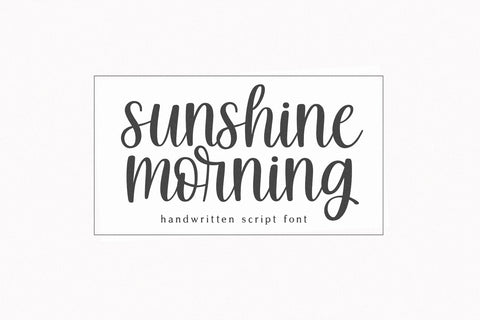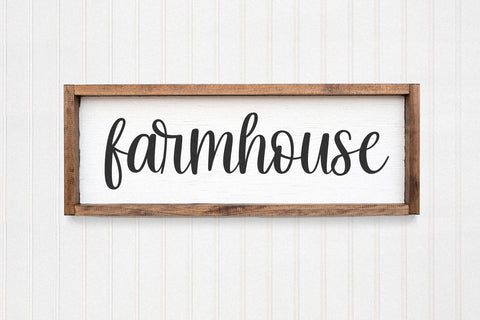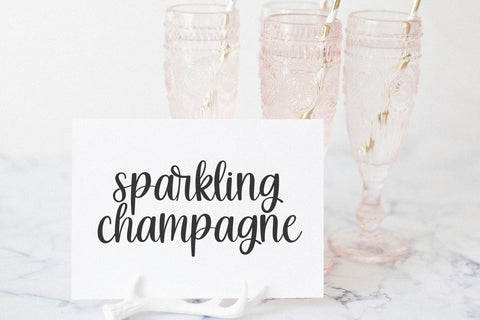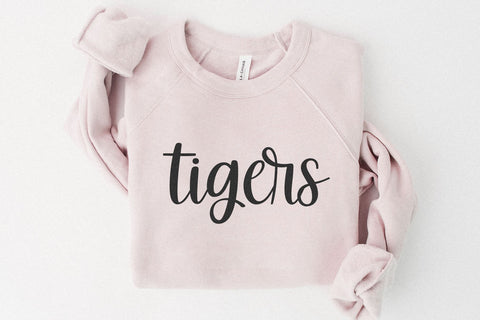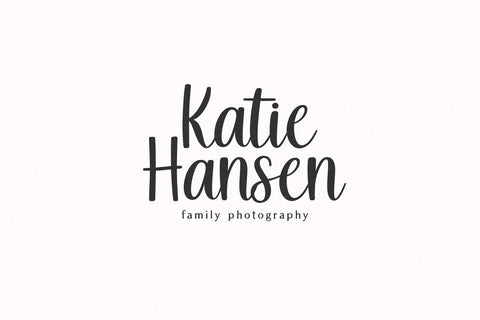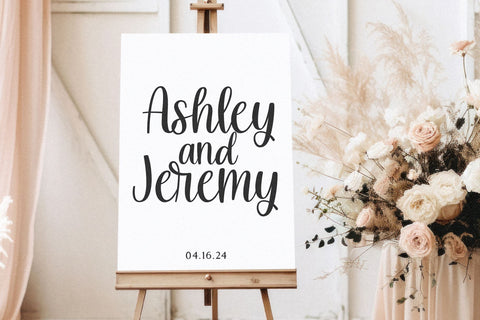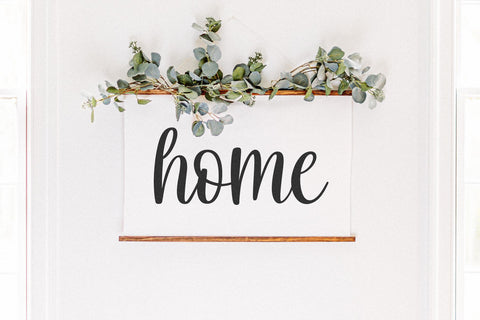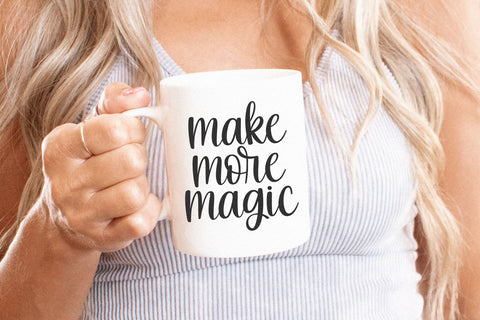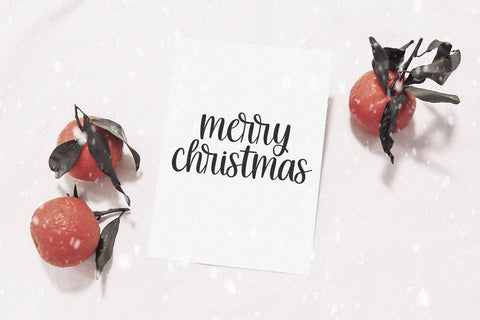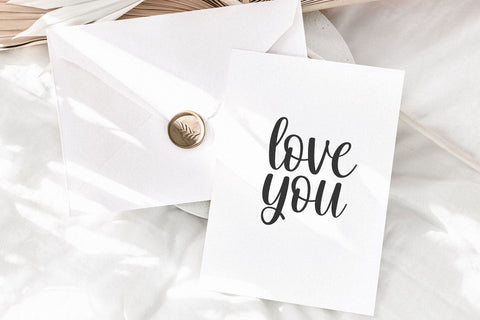
Sunshine Morning - Handwritten Script Font
Sunshine Morning is a handwritten script font.
This font is perfect for cricut projects, svg files, farmhouse designs, goodnotes, planners, stickers, quotes, social media, logos, wedding decor and more!